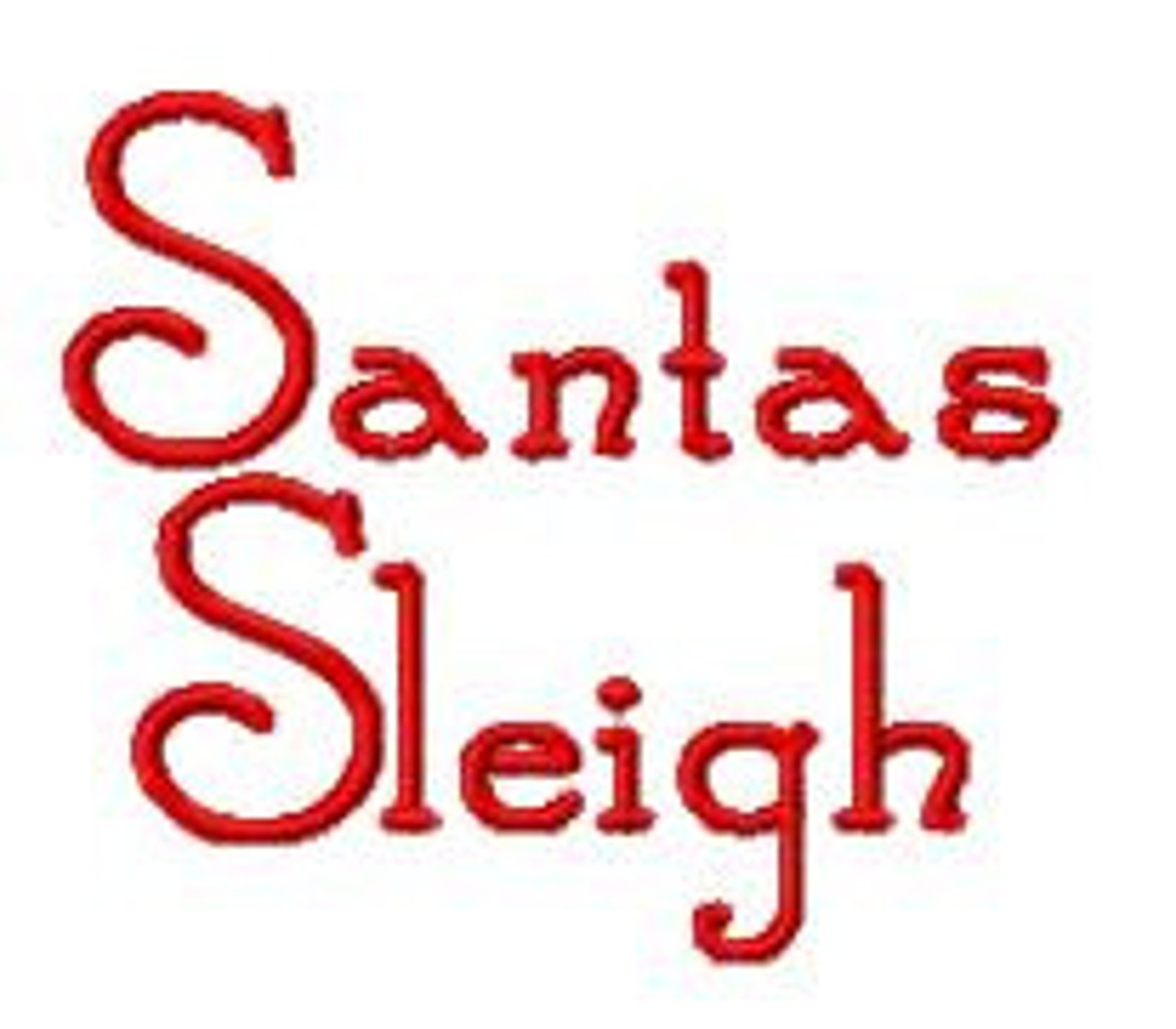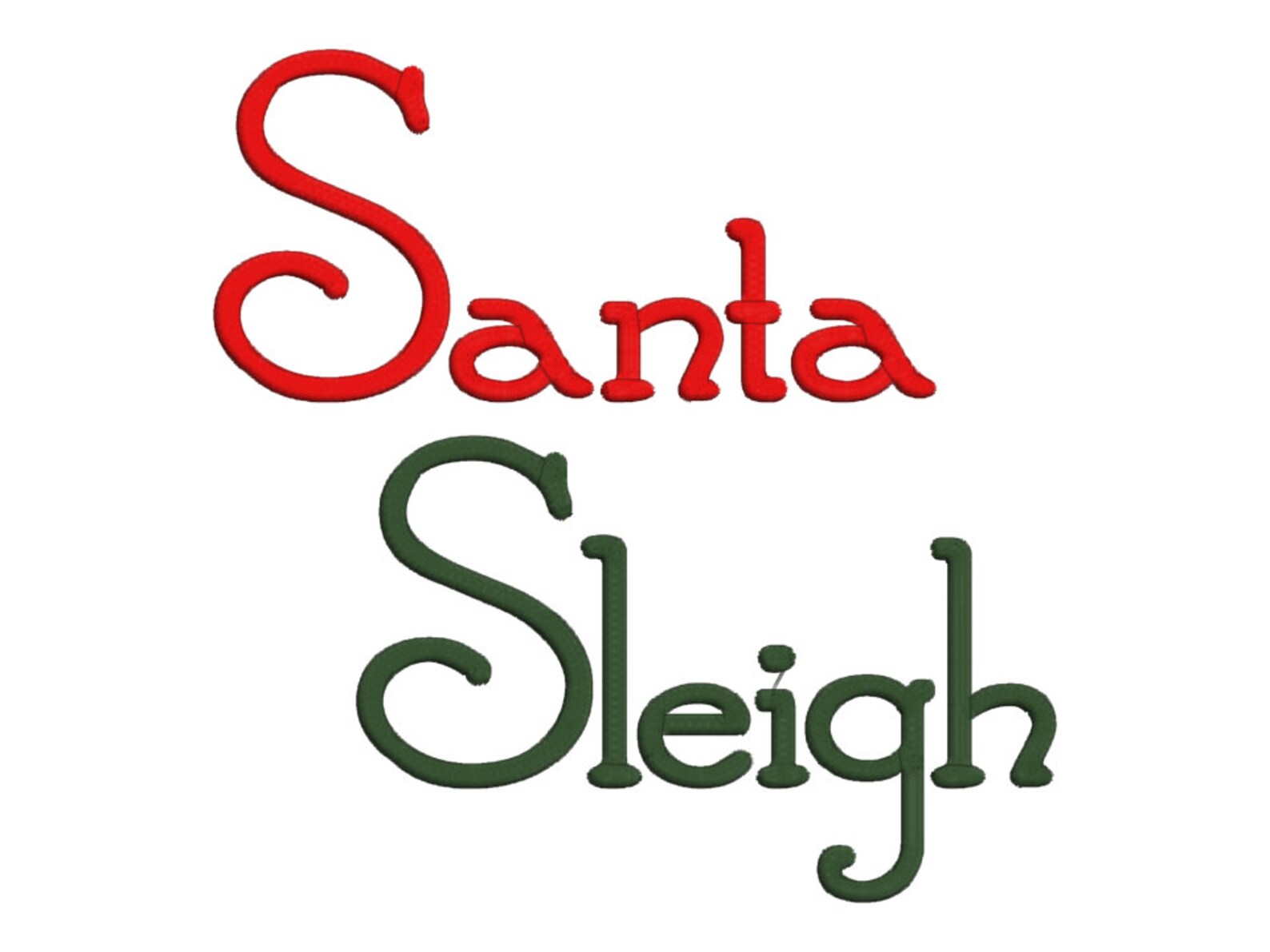
Santas Sleigh Font
Santas Sleigh Font - It has 1,804,138 downloads and 60 comments,. Perfect for cutting machines such as. Web santa's sleigh is a custom font by hypotypo that was first seen on dafont in 2005. Web download santa's sleigh font, a free font for personal use created by hypotypo, with 3 styles available (santas sleigh full,. Web santa's sleigh is a fun holiday font to spruce up things for christmas!
Web Santa's Sleigh Is A Custom Font By Hypotypo That Was First Seen On Dafont In 2005.